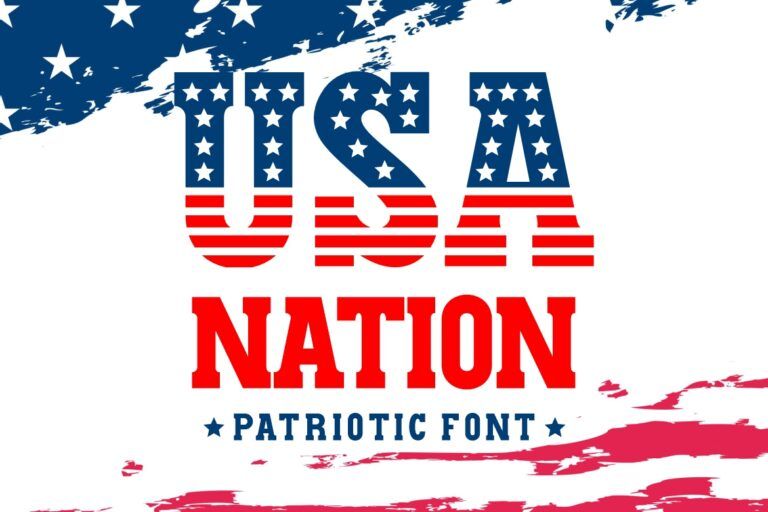
What Makes a Font Varsity So Iconic in Visual Design?
When you think of sports, college pride, or vintage team jackets, one thing always stands out, which is varsity fonts. Bold, confident, and instantly recognizable, this typeface has been a design staple for decades.
They’re very useful for designing a sports logo, a school project, or trendy streetwear. But what exactly defines a font varsity, and how can you use it effectively?
Curious? Let’s break it down here before diving into four of the best varsity fonts from HansCo Studio.
What Is a Varsity Font?
In simple terms, a varsity font refers to the bold, blocky letter style you often see on college apparel, sports jerseys, or athletic banners. It’s the typographic equivalent of a team captain’s jacket which is strong, structured, and full of personality.
Varsity fonts were originally inspired by the stitched lettering used on sports uniforms. The design emphasizes visibility, team identity, and pride.
Over time, this lettering style evolved into a symbol of both school spirit and competitive energy, now widely used in branding, fashion, and digital design.
So, where do varsity fonts work best? The beauty of the font varsity lies in its versatility. While originally tied to sports and education, designers today use it in many other creative fields. Here are some popular uses:
• Sports and team branding
• Apparel and streetwear
• School and academic designs
• Marketing and merchandise
Characteristics of Varsity Fonts
These fonts typically feature thick lines, geometric shapes, and uniform proportions that make them easy to read from a distance, perfect for stadium signage or team logos.
However, every font varsity has its own flavor, but most share some common traits that give them their signature “college look”. Here’s some details:
⦁ Bold and Structured Letterforms
Varsity fonts often use block-style capital letters with sharp edges and even weight. This gives them a masculine, commanding presence, suitable for team-oriented designs.
⦁ Clear Slab Serifs
Many varsity fonts have slab serifs (short, thick lines at the ends of strokes) that add a sturdy and traditional touch. It’s what makes them look powerful but still clean and readable.
⦁ High Contrast and All Caps
Font varsity styles are usually displayed in uppercase to maintain consistency and impact. You’ll also notice variations like two-tone outlines or shadow effects that add depth and highlight.
⦁ Athletic and Academic Vibes
Because of their strong ties to sports and education, varsity fonts instantly evoke feelings of competition, pride, and belonging. That’s why they work so well for logos, jerseys, merchandise, and school branding.
Types of Font Varsity
Just like sports teams have different play styles, varsity fonts come in a variety of types. Understanding each will help you choose the best one for your design, such as:
⦁ Classic Block Varsity
This is the iconic varsity look everyone recognizes. The letters are bold, squared, and evenly spaced, creating a sense of structure and discipline. It’s often seen on football jerseys, school banners, and team logos, where clarity and impact matter most.
⦁ Stitched or Appliqué Varsity
This variation mimics embroidered or sewn lettering, complete with faux stitch lines or textured edges. Perfect for designs that want to feel handcrafted or nostalgic, such as vintage apparel, DIY crafts, or old-school sports branding.
⦁ Distressed Varsity
Designed to look weathered and imperfect, this type adds grunge textures, faded ink, or rough edges. It’s ideal for retro themes, concert merch, or casual streetwear, where a “worn-in” vibe feels authentic and cool.
⦁ Outline or Stencil Varsity
This modern twist uses hollow or cutout letterforms to create visual layers and contrast. You can use this type for layered graphics, bold signage, or digital posters that need extra depth.
⦁ Script Varsity
Blending smooth curves with athletic boldness, script varsity fonts bring energy and elegance together. They work beautifully for stylized sports branding, fashion, or premium athletic campaigns.
4 Best Font Varsity Styles You’ll Love
Now, let’s explore some of the standout varsity fonts from us at HansCo Studio:
1. Machton Font
This font has a touch of vintage sports design with its mix of bold strokes and smooth curves. It’s a varsity font that feels both athletic and artistic, reminiscent of classic baseball logos or university team jackets.
2. Origin Athletic Font
Origin Athletic delivers everything you want from a varsity font, such as solid structure, sharp corners, and perfect alignment. Ideal for team jerseys, school crests, and sports logos, its all-uppercase format ensures instant readability even from afar.